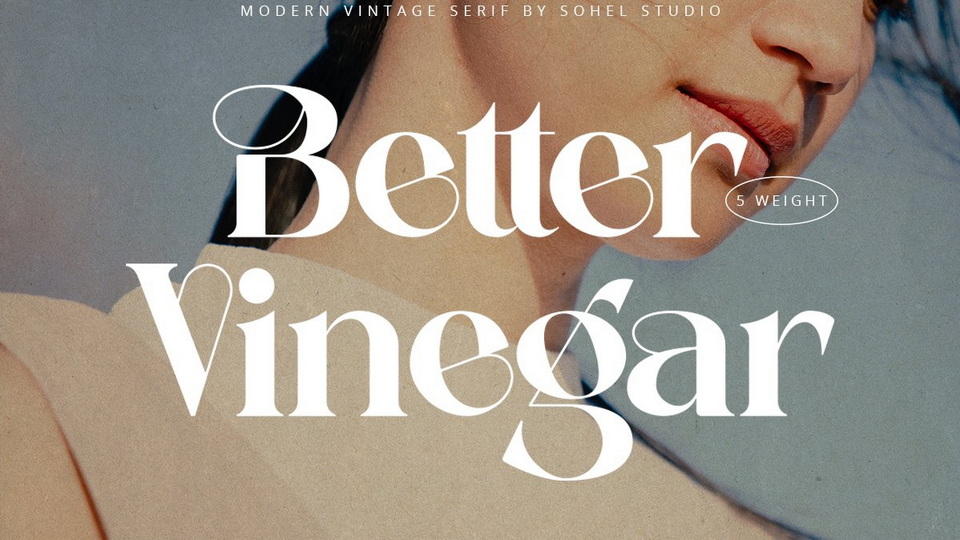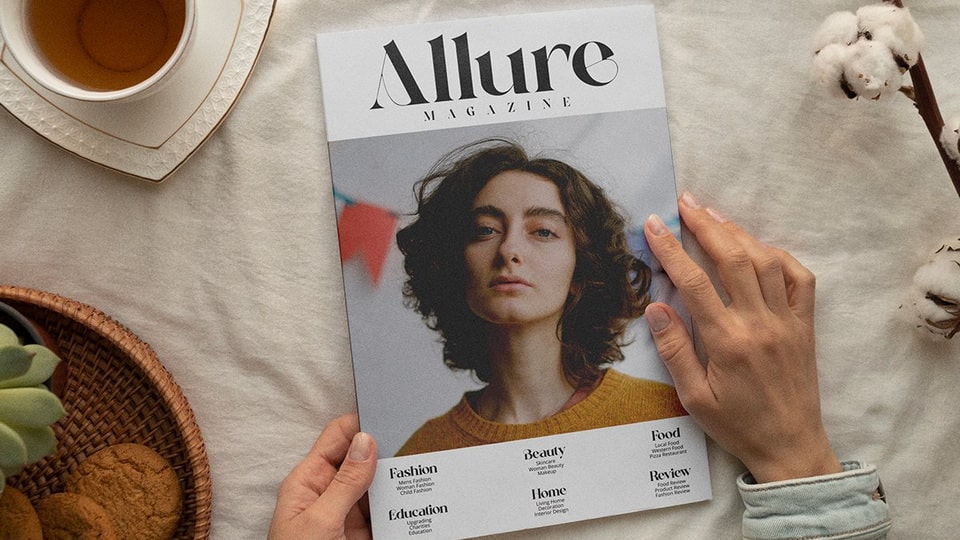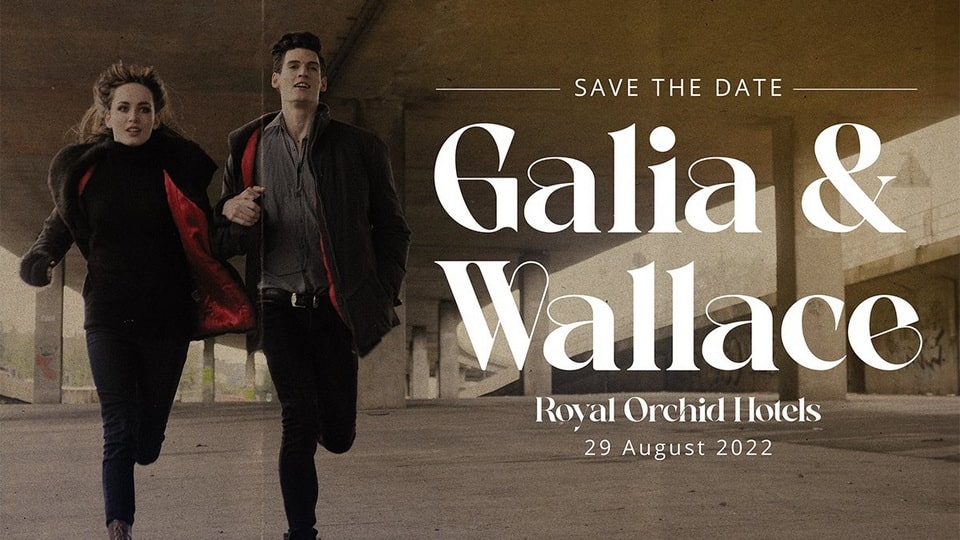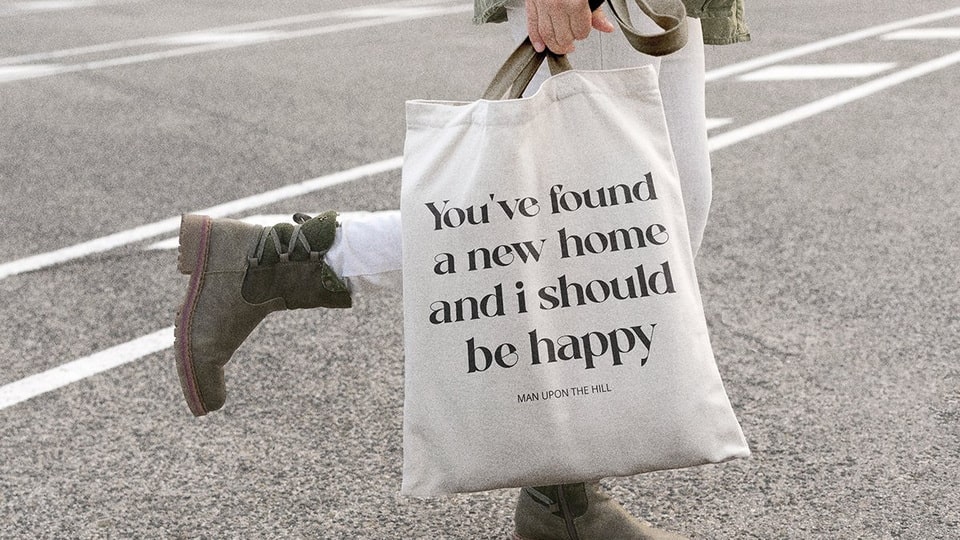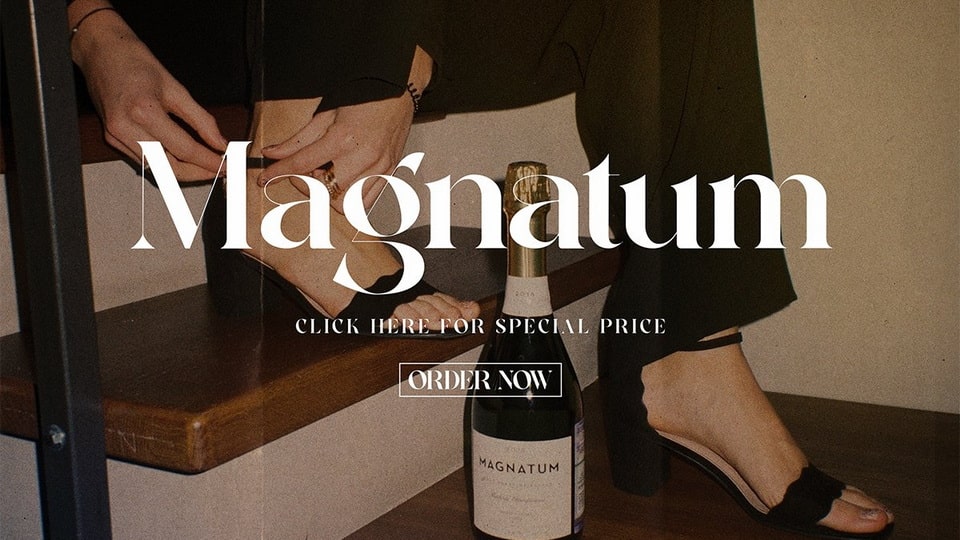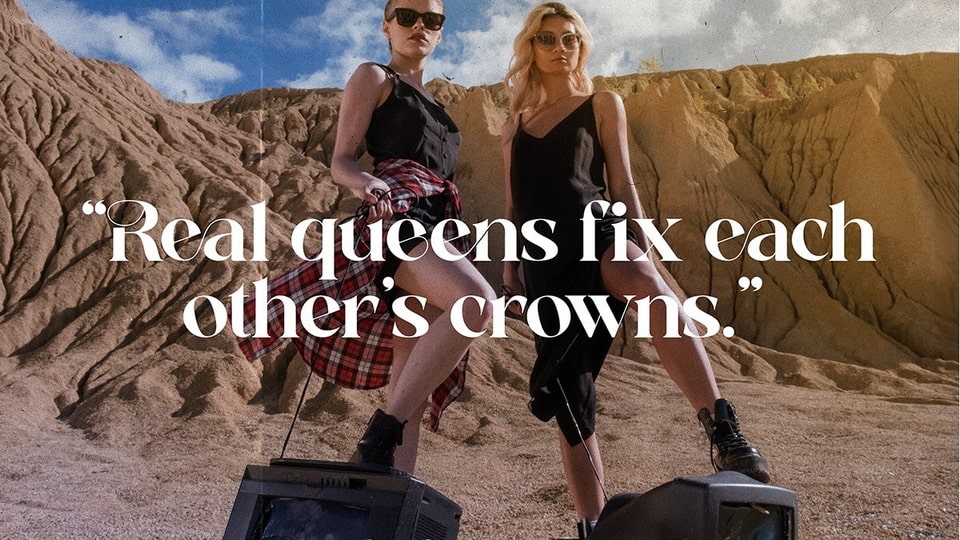
Better Vinegar is a modern, vintage serif typeface with beautiful ligatures, unique alternatives, and perfect kerning.
Better Vinegar font is perfect for an elegant and luxury logo, classy editorial design, women’s magazine, fashion brand, cosmetic brand, fashion promotion, modern advertising design, invitation card, art quote, home decoration, book/cover titles, special events, and much more.